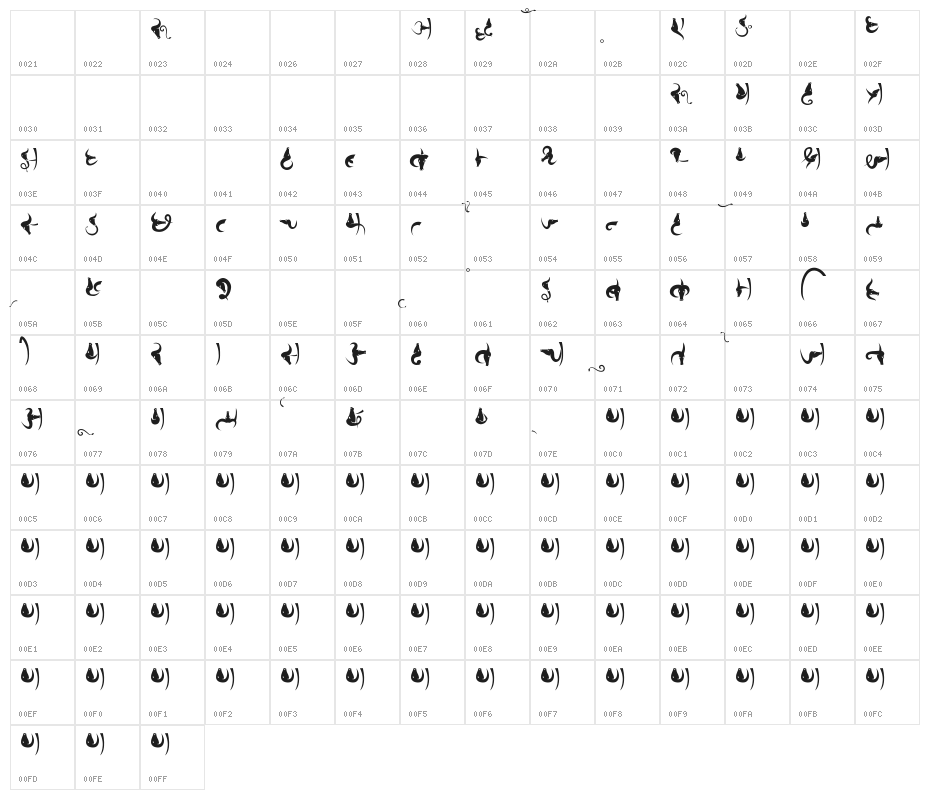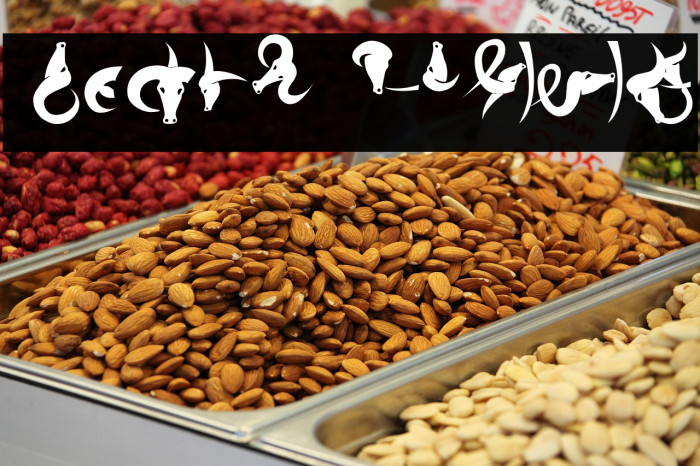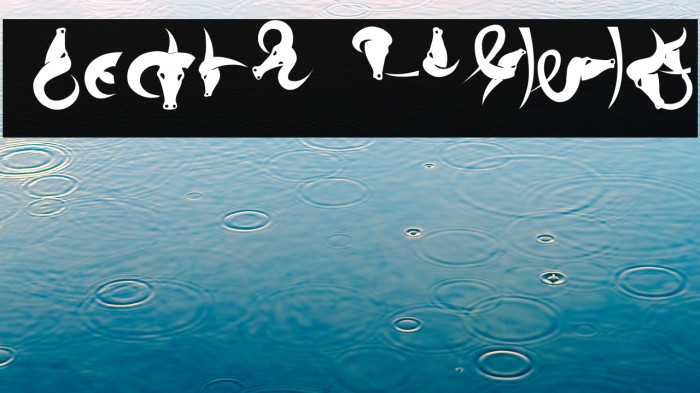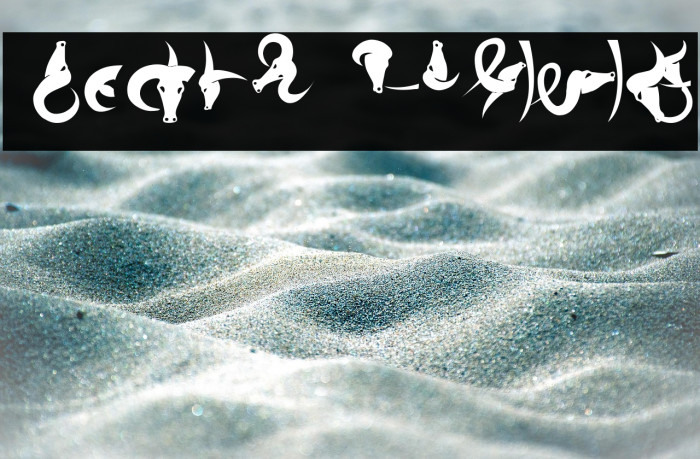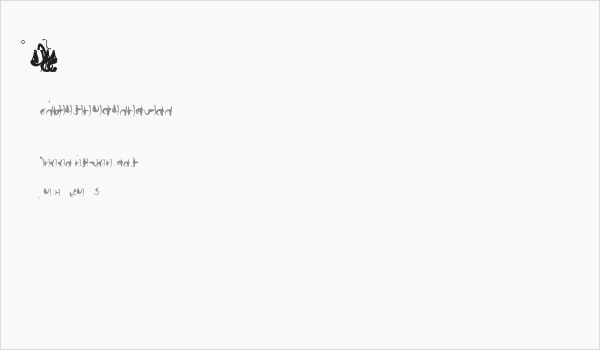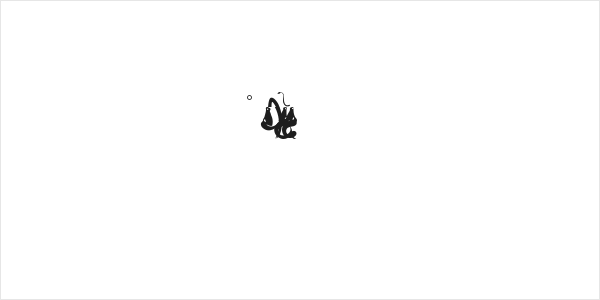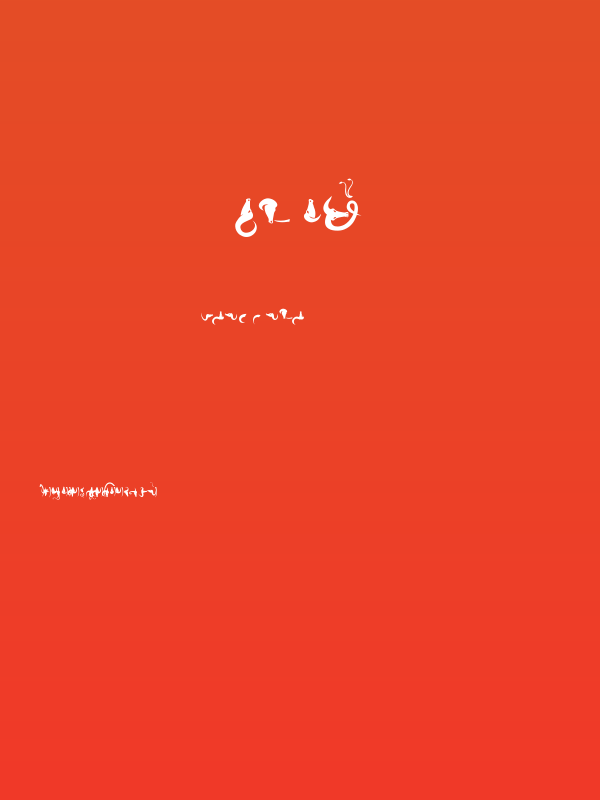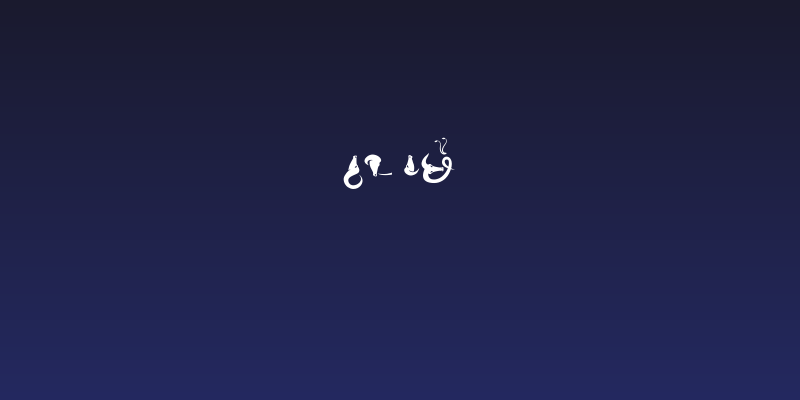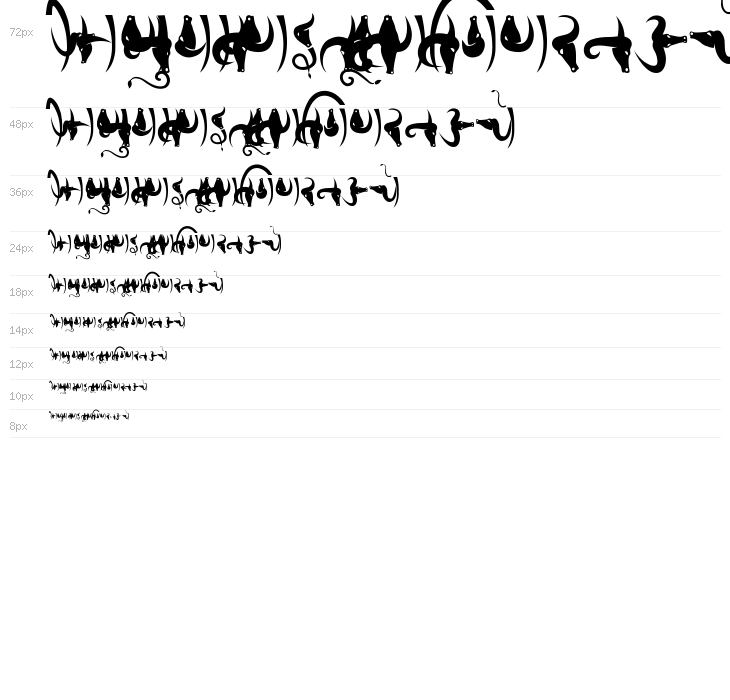
Bhains Font
Bhains Description
This font features a highly decorative and artistic style, incorporating intricate and whimsical elements that resemble abstract animal forms. Each character is uniquely crafted, with flowing lines and curves that create a sense of movement and playfulness. The design is bold and eye-catching, making it suitable for creative and unconventional projects. The characters have a consistent visual theme, with each letter and symbol maintaining the artistic motif. The font's distinctiveness lies in its ability to transform standard text into a visual art piece, making it ideal for projects that require a strong visual impact.